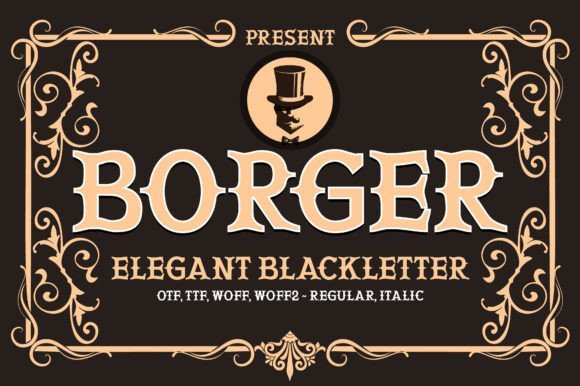
Introduction to Borger Font
Borger is a strong, extreme, and vintage blackletter detailed serif font.
It was initially created as a readable display font that fits perfectly when you are designing alcohol packaging However, it fits great other themes such as film posters, horror designs, barber shop graphics and packaging, Halloween, etc.